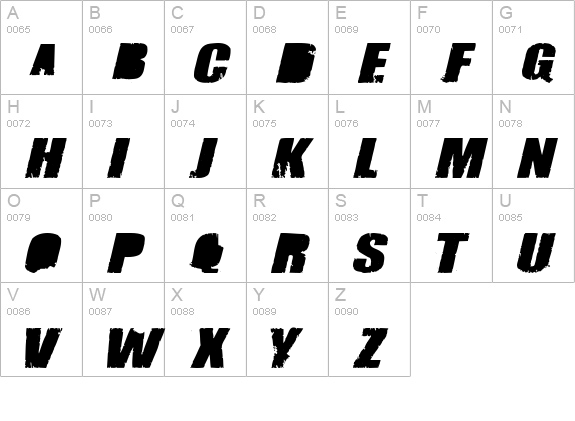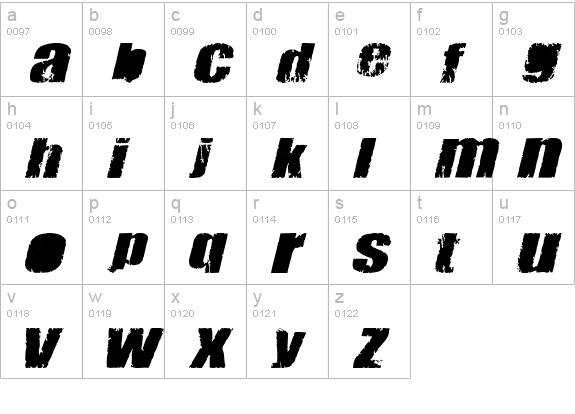
Meanies Thick Font Details
Meanies Thick font is a bold and eye-catching typeface designed to make a statement. With its thick and heavy strokes, this font exudes confidence and strength, making it perfect for headlines, logos, and branding projects that demand attention. The unique design of Meanies Thick font gives your text a modern and edgy look, while still maintaining readability. Whether you're creating a poster, flyer, or website design, this font is sure to stand out and leave a lasting impression on your audience. Best of all, Meanies Thick font is available for free download at FontsMarket.com. Don't miss out on the opportunity to add this striking font to your collection and elevate your design projects to the next level. Download Meanies Thick font today and unleash your creativity!